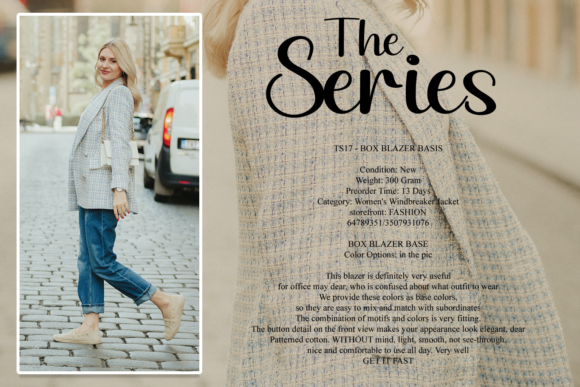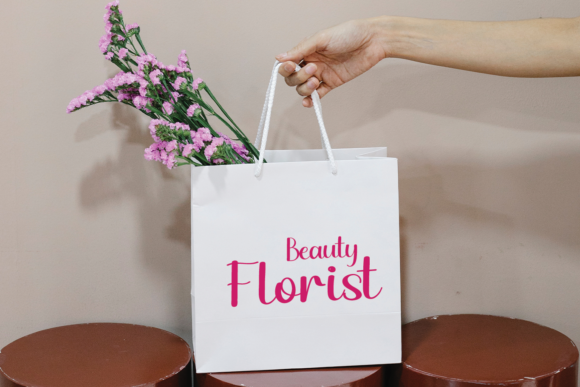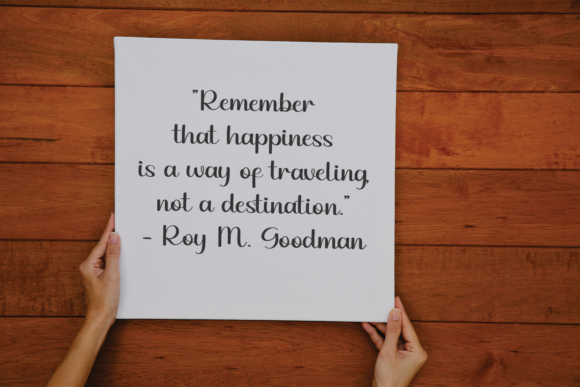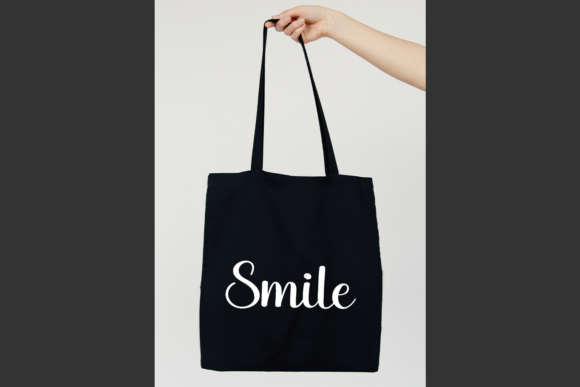
Happiness Font: Elevate Your Designs with Elegance and Sophistication
Are you searching for a font that exudes class, elegance, and modernity? Look no further than the Happiness Font! This beautiful and refined script font is perfect for designers and crafters looking to add a touch of sophistication to their projects. In this article, we’ll dive into the features and benefits of the Happiness Font, and explore how you can use it to take your designs to the next level.
A Classy and Elegant Script Font
The Happiness Font is a stunning script font that boasts a classy, elegant, and modern look. Its refined strokes and beautiful lettering make it perfect for a variety of design applications, from logos and branding to invitations, stationery, and wedding designs. Whether you’re creating a sophisticated business logo or a romantic wedding invitation, this font is sure to impress.
One of the best things about the Happiness Font is its versatility. This font can be used for a wide range of design projects, including:
- Logos and branding: Create a lasting impression with a custom logo that showcases your brand’s personality and style.
- Invitations and stationery: Add a touch of elegance to your invitations, greeting cards, and stationery.
- Wedding designs: Make your wedding designs truly unforgettable with this beautiful script font.
- Social media posts: Elevate your social media game with stylish and sophisticated text overlays.
Why Choose the Happiness Font?
So, what sets the Happiness Font apart from other script fonts on the market? Here are just a few reasons why designers and crafters love this font:
- Elegant and refined: The Happiness Font has a sophisticated and polished look that’s perfect for high-end designs.
- Modern and trendy: This font is perfect for designers who want to create modern and stylish designs that appeal to a wide audience.
- Highly versatile: Use this font for a wide range of design projects, from logos and branding to social media posts and wedding designs.
- Easy to read: Despite its elegant and refined look, the Happiness Font is still highly legible, making it perfect for body text and captions.
Tips for Using the Happiness Font
Now that you know a little bit about the Happiness Font, here are some tips for using it in your designs:
- Pair it with contrasting fonts: Pair the Happiness Font with bold and sans-serif fonts to create a striking contrast.
- Experiment with colors: Try out different colors and textures to add depth and interest to your designs.
- Use it sparingly: While the Happiness Font is beautiful, it can be overwhelming if overused. Use it sparingly to create a lasting impression.
In conclusion, the Happiness Font is a beautiful and refined script font that’s perfect for designers and crafters looking to add a touch of elegance and sophistication to their projects. With its classy, elegant, and modern look, this font is highly versatile and can be used for a wide range of design applications. Whether you’re creating a logo, invitation, or social media post, the Happiness Font is sure to elevate your designs and leave a lasting impression.